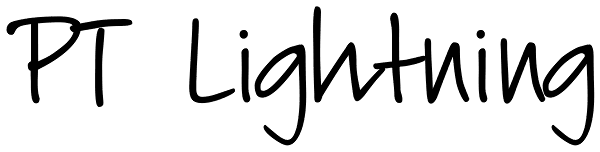
PT Lightning
Lightning font was developed for the series of handwriting fonts based on the writing samples of real people. The font delivers natural sincere touch and can magically convert any stupid advertising text into intimate advice of your good friend...